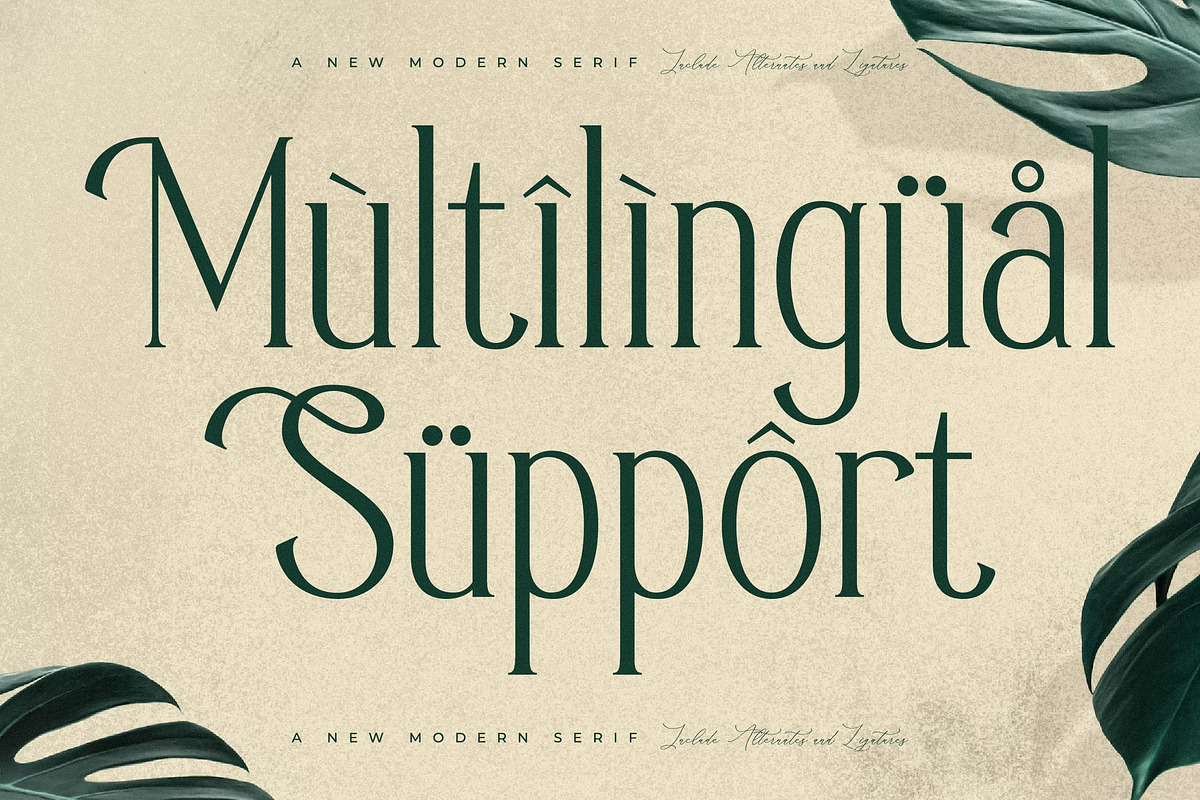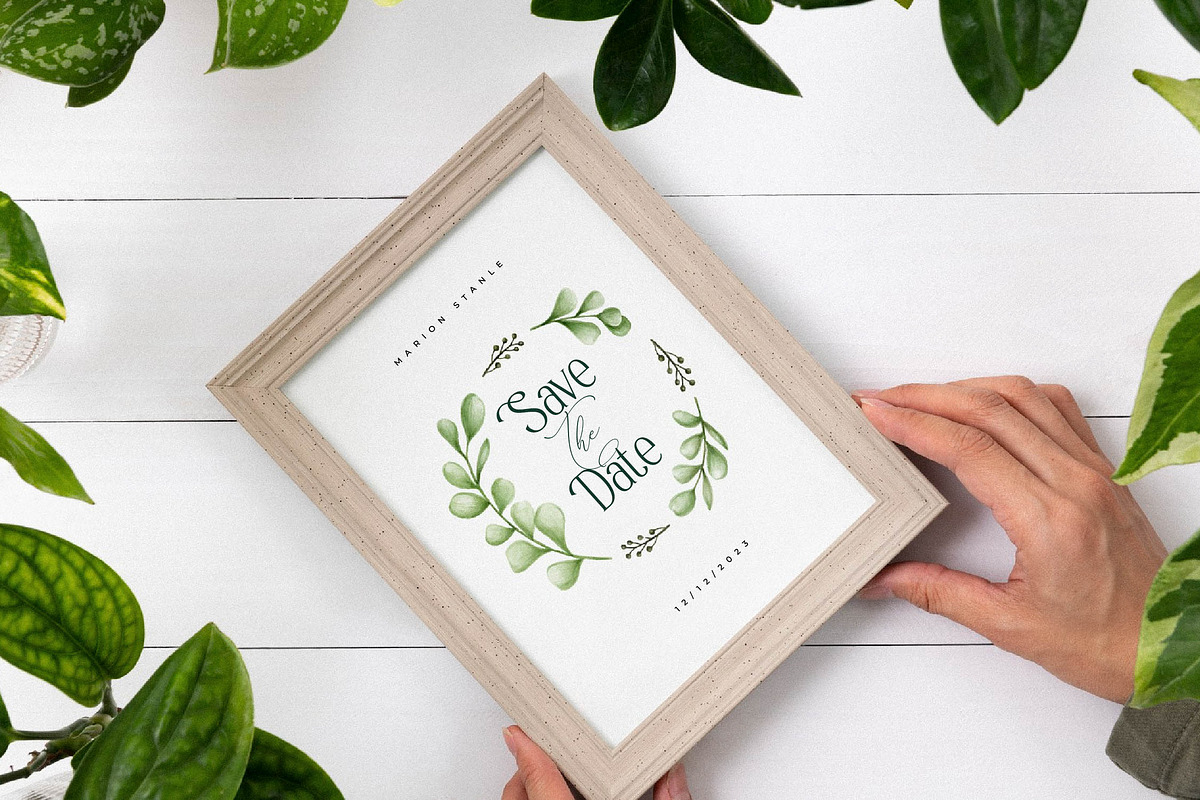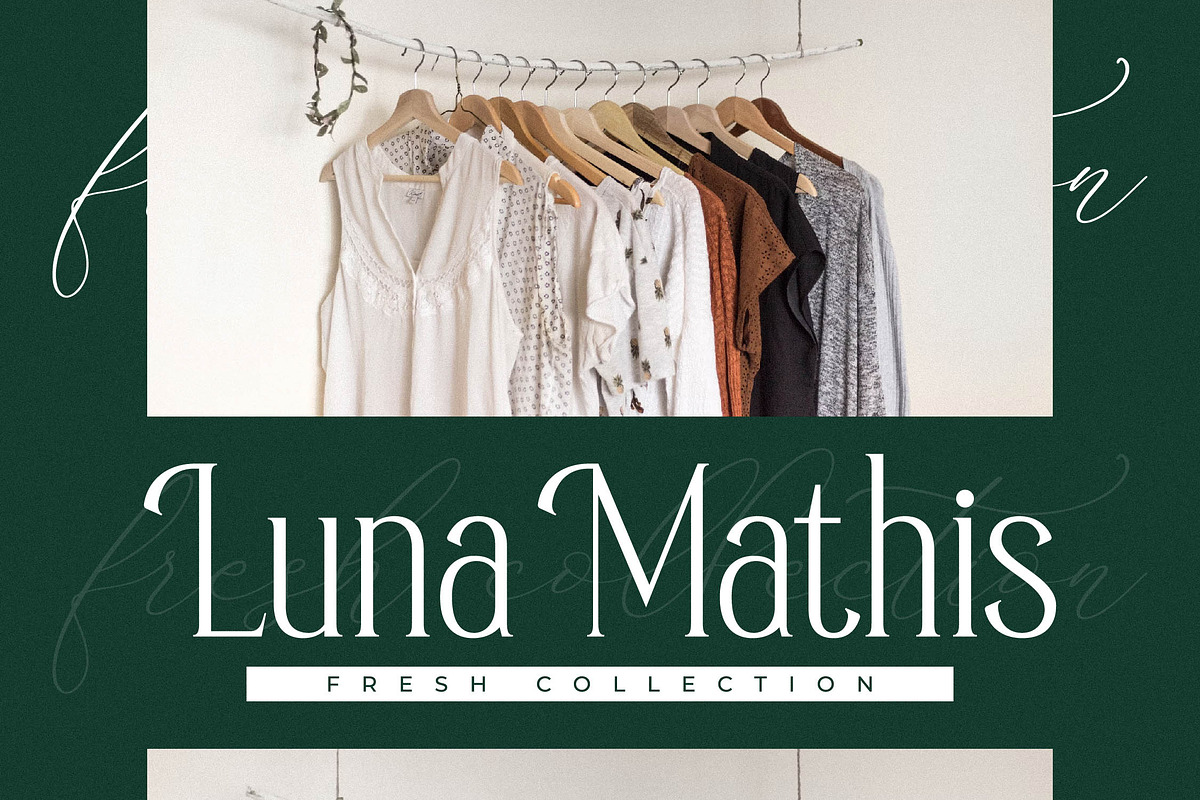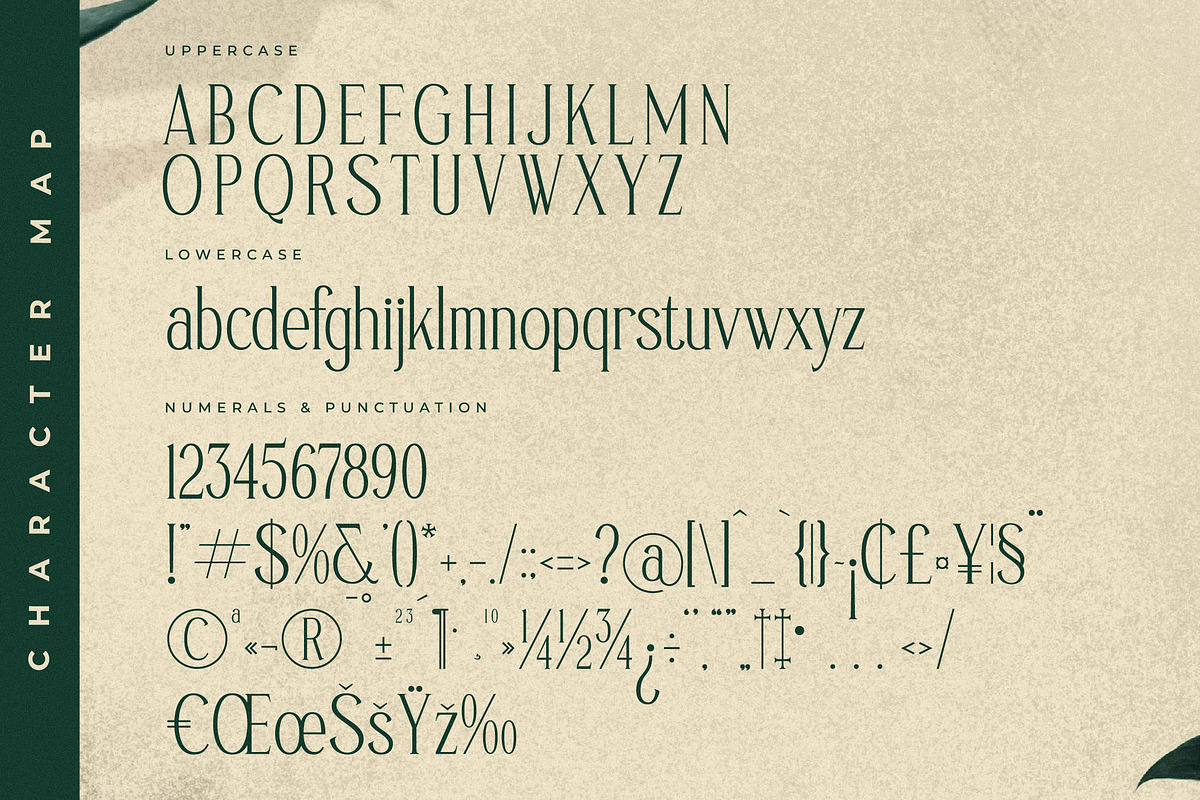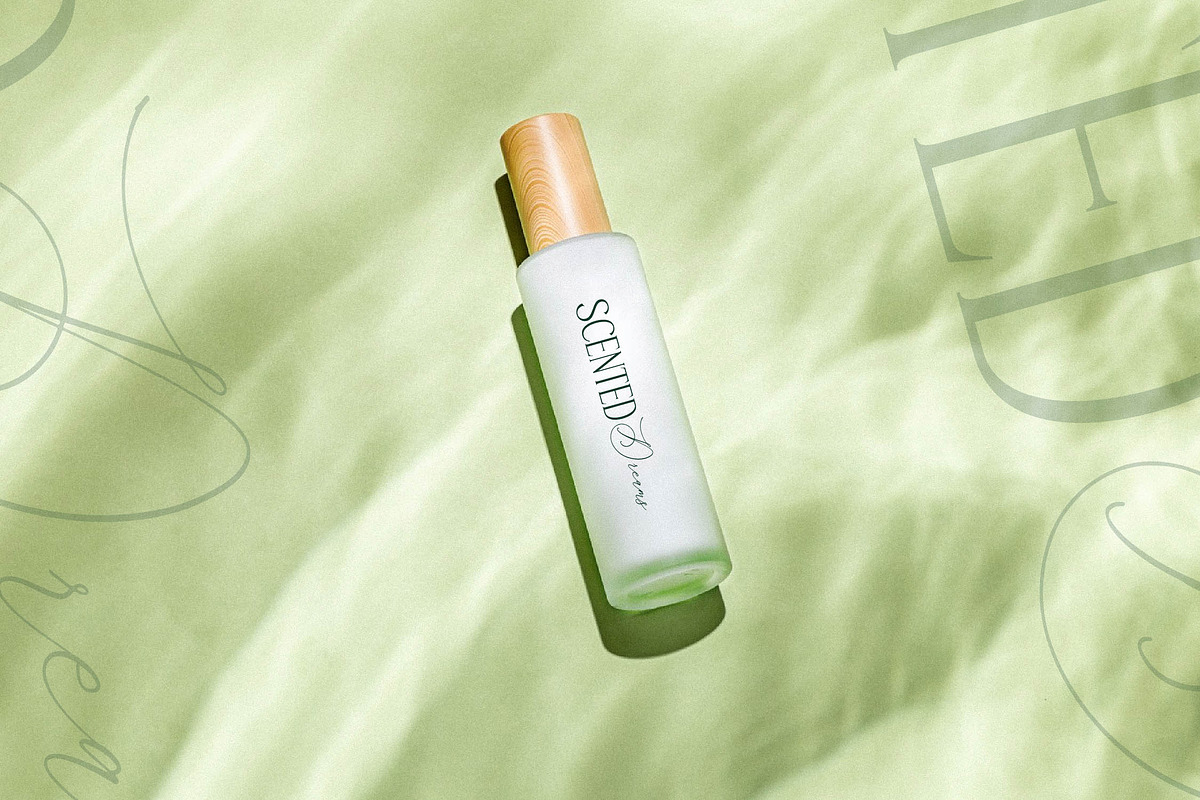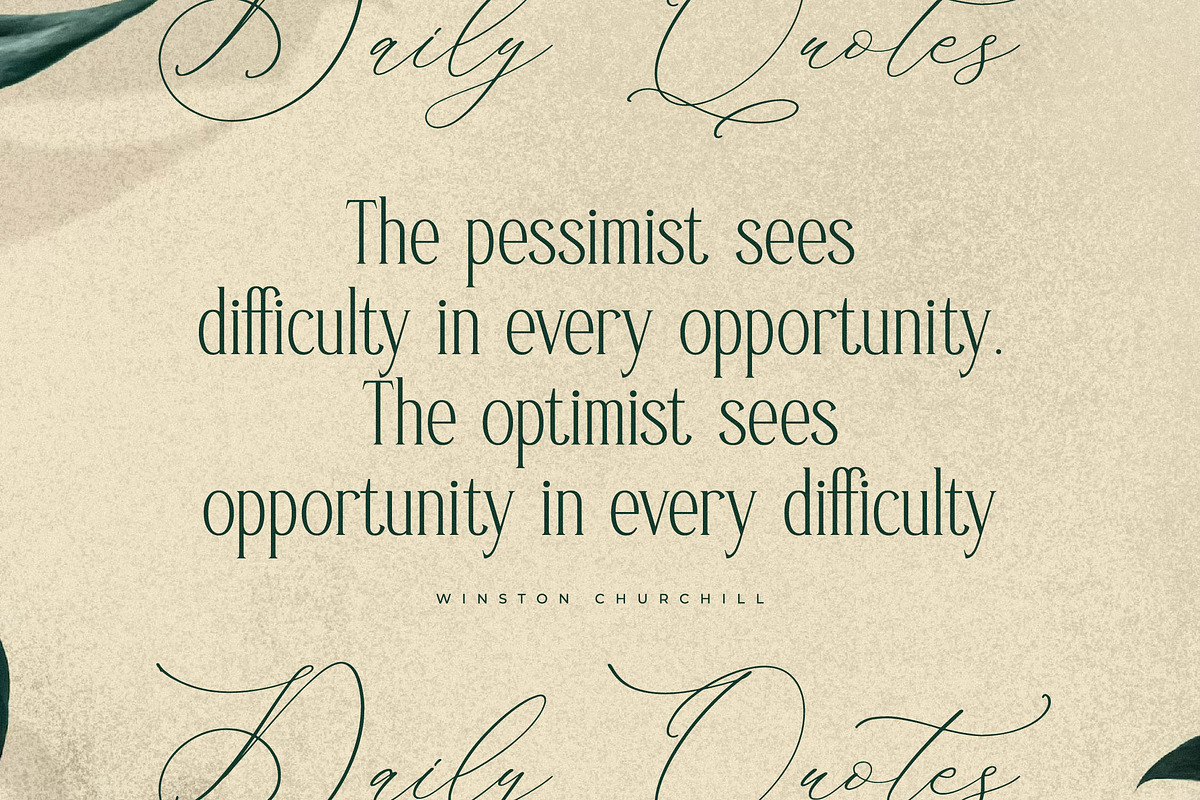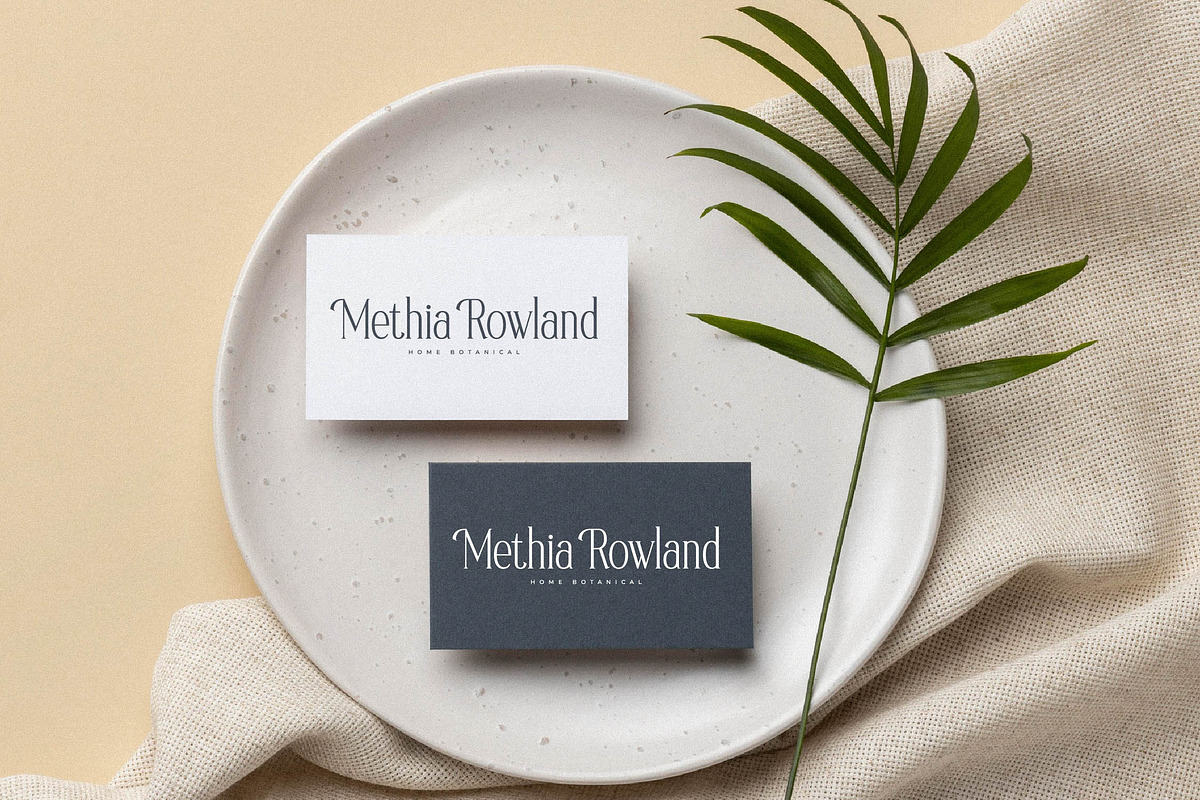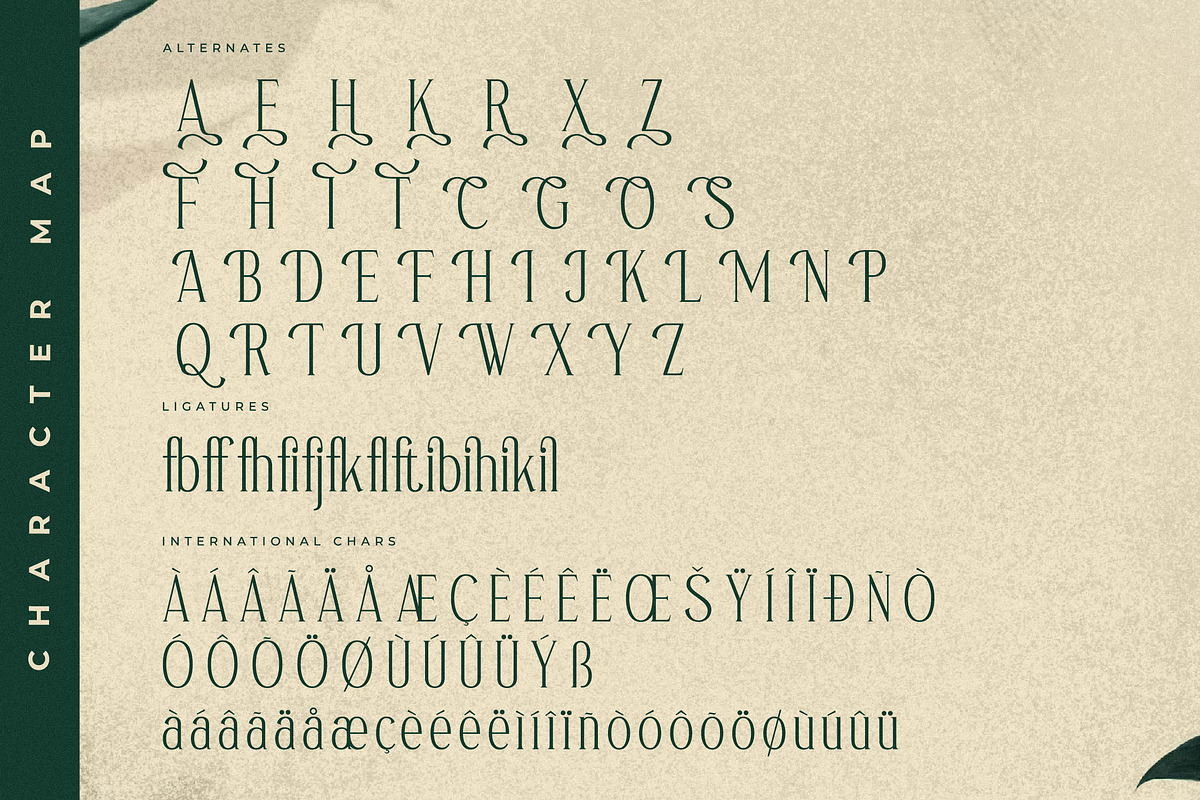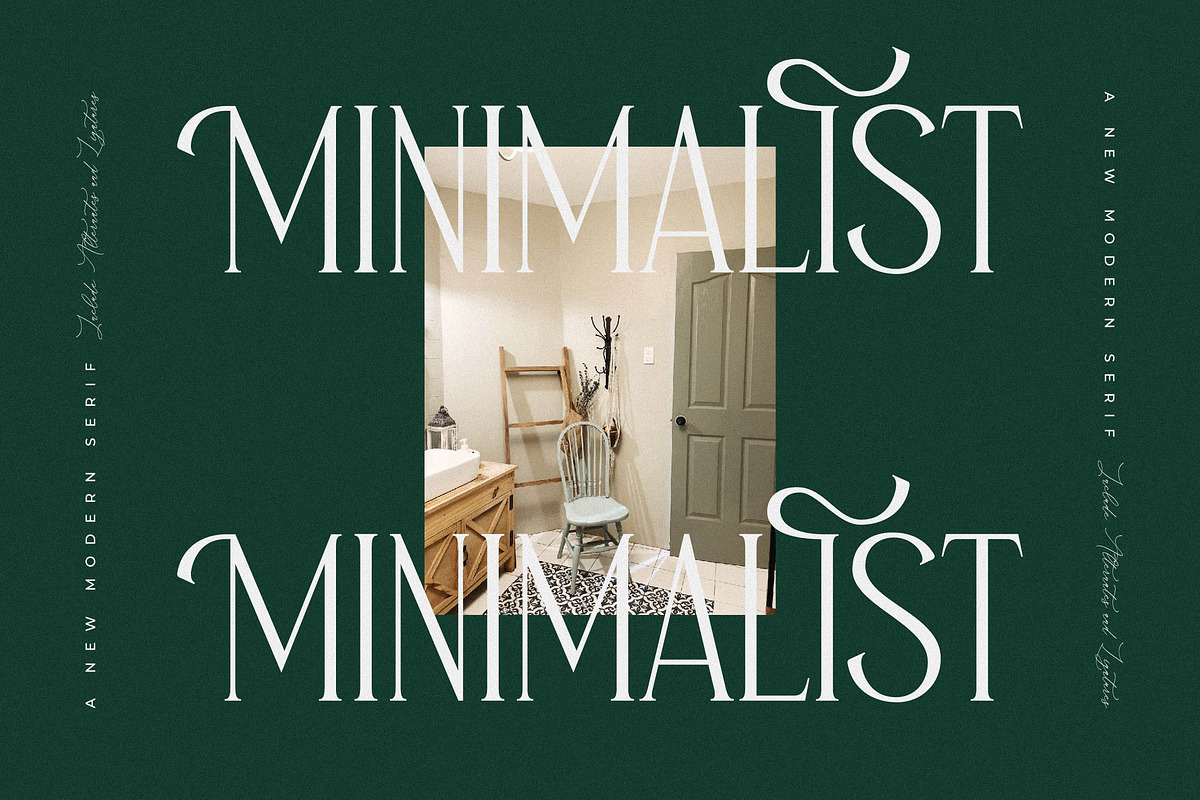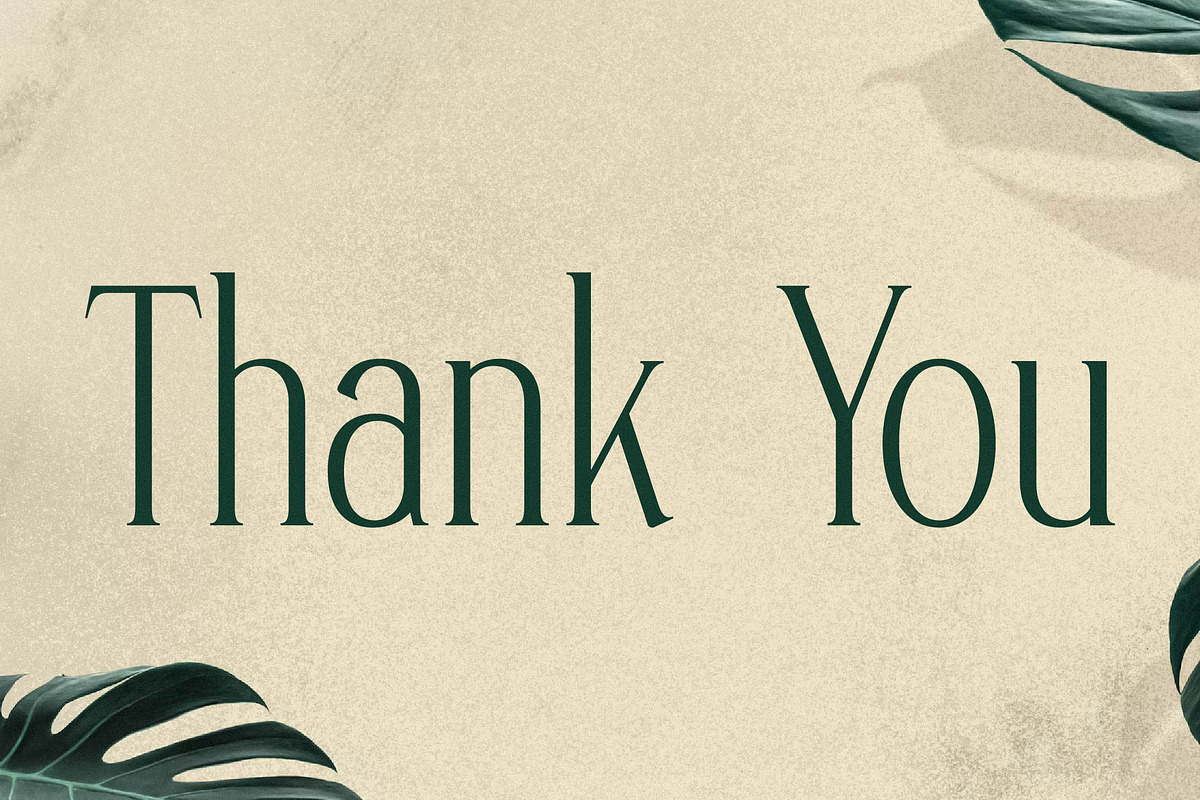
Sufinter A New Modern Serif Font
Proudly present Sufinter Typeface , created by Storytype, A serif modern and classic typeface that has own unique style & modern look. This typeface is perfect for an elegant & luxury logo, book or movie title design, fashion brand, magazine, clothes, lettering, quotes, and so much more.